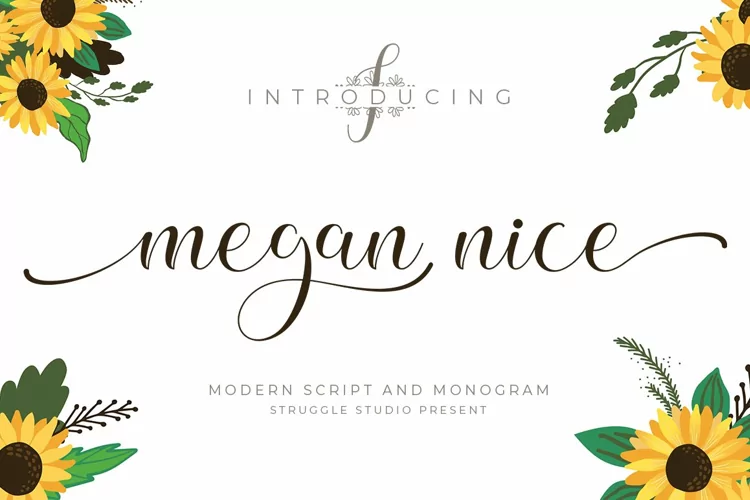
Megan Nice is a beautiful hand-drawn font duo. Script and Monogram that create a casual, yet stylish combination. Perfect for invitations, prints, greeting cards and more.